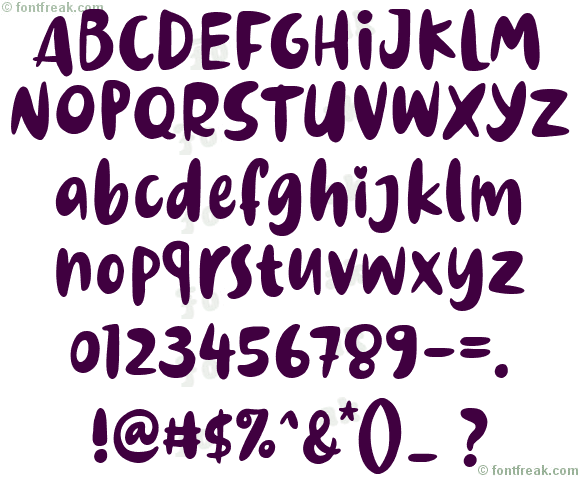
Dinomiko
Dinomiko, designed by Situjuh Nazara, is an eye-catching display font characterized by its playful and bold design. This font falls into the decorative category, making it perfect for projects that require a touch of whimsy and creativity. The strokes exhibit a medium weight with a consistent thickness, providing a sense of balance and readability while maintaining an inviting aesthetic. The rounded edges and friendly curves contribute to its approachable vibe, making it suitable for a variety of applications.
Dinomiko's unique visual characteristics make it especially effective in certain contexts. It shines in designs for children’s books, where its lively appearance can engage young readers. Additionally, it is an excellent choice for branding in playful businesses, such as toy stores or cafes targeting families. The font also works beautifully for event flyers, particularly those focused on fun gatherings like birthday parties or community events. Its charming nature makes it suitable for restaurant menus that wish to convey a casual and friendly atmosphere. Furthermore, it can enhance social media graphics for content creators looking to add a distinctive flair to their posts.
What sets Dinomiko apart is its ability to convey personality while remaining versatile enough for various design projects. Its combination of fun and functionality makes it a standout choice for anyone looking to infuse a sense of joy into their work.